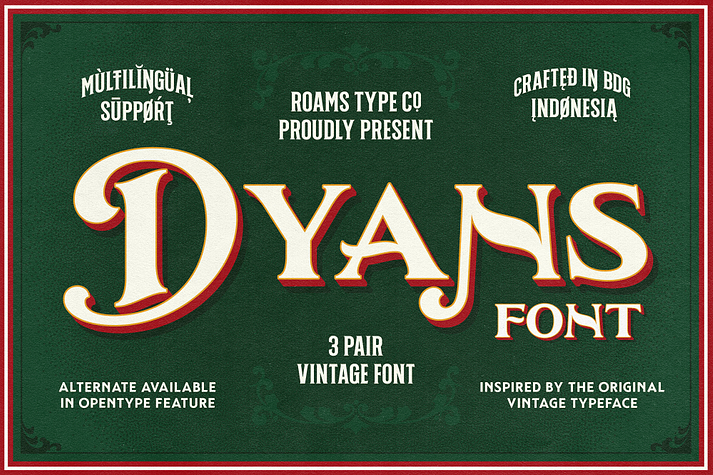
RT Dyans
RT Dyans is a display and display serif font family. This typeface has three styles and was published by Roams Type.
Dyans Font Family is a type of font that is inspired by vintage handwriting art that is often used in signwood, signpainting and others, usually this font is very suitable for manual hand lettering or hand painting art. This font uses the open type feature so you can explore alternative types in certain letters. Enjoyed.
This font conssist of:
• Stylistic Set
• Alternate Character
• Multilingual Support
• Math Symbol
• Numeral & Punctuation
Styles Display, Display Serif